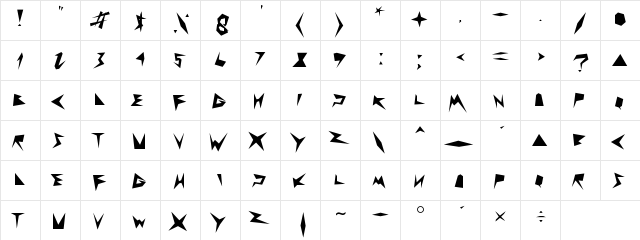
zig zag zeg Regular
Design Context for zig zag zeg Typeface
zig zag zeg is a composed and adaptable typeface that performs quietly and consistently across a wide range of design contexts.